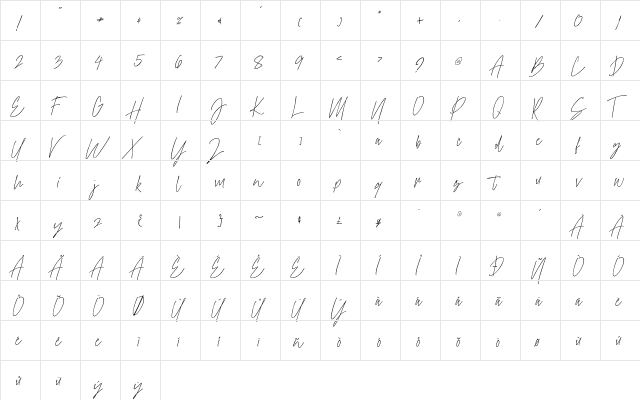
theraphiest Regular
Design Context for theraphiest Typeface
theraphiest is a composed and adaptable typeface that performs quietly and consistently across a wide range of design contexts.